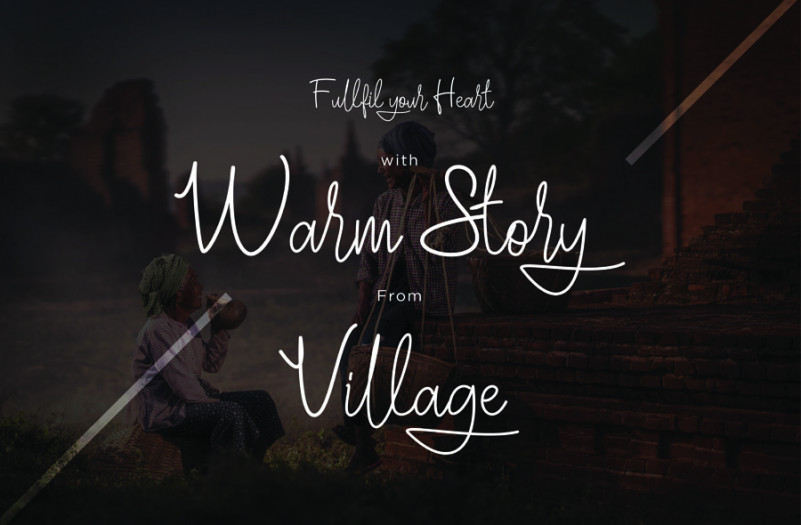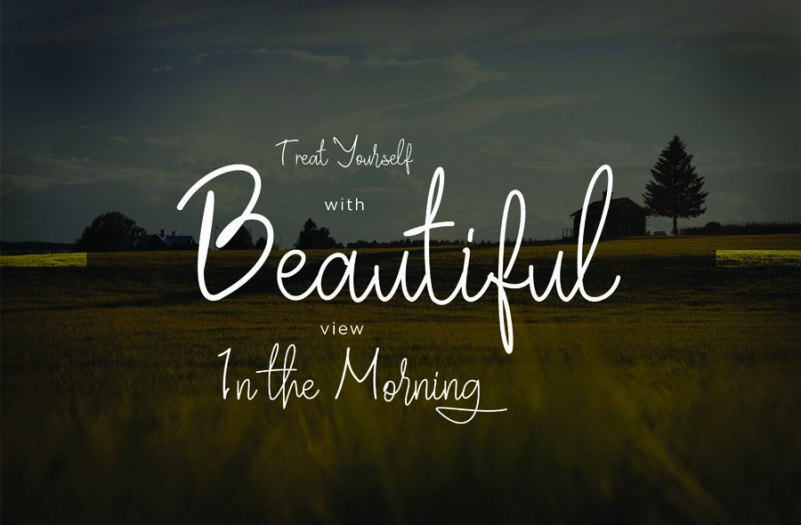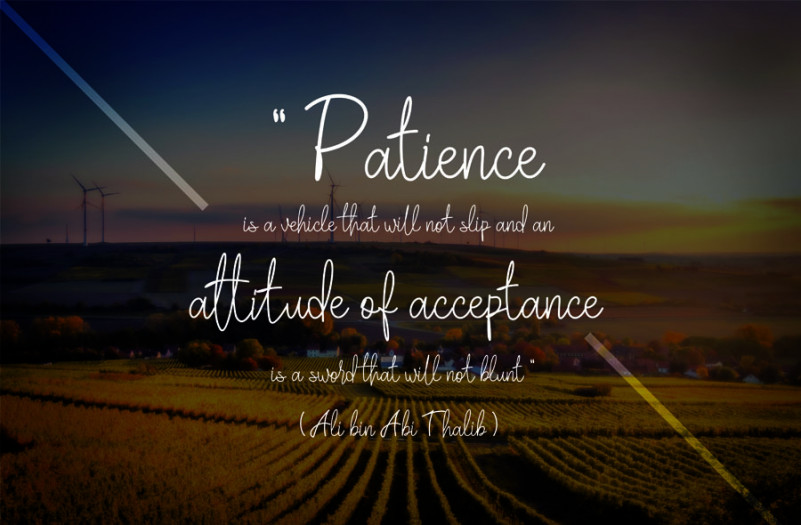
Villaga Font
Hi, Welcome to Villaga Stylish Signature Font
Villaga Stylish Signature handwritten font can be used on : wedding invitation, signature, logo, brochure, poster and many more for your need. to make your every project looks good and natural.